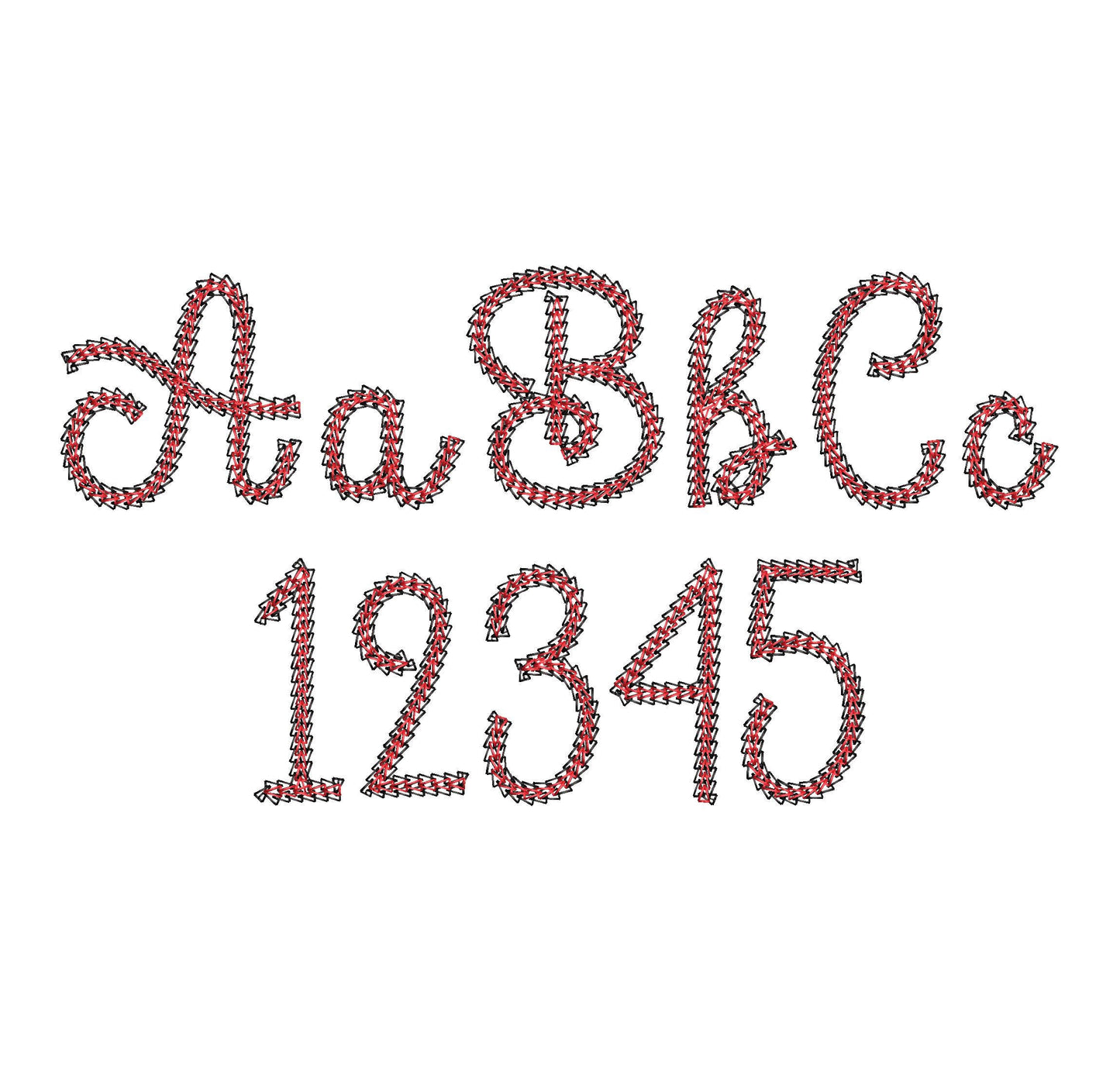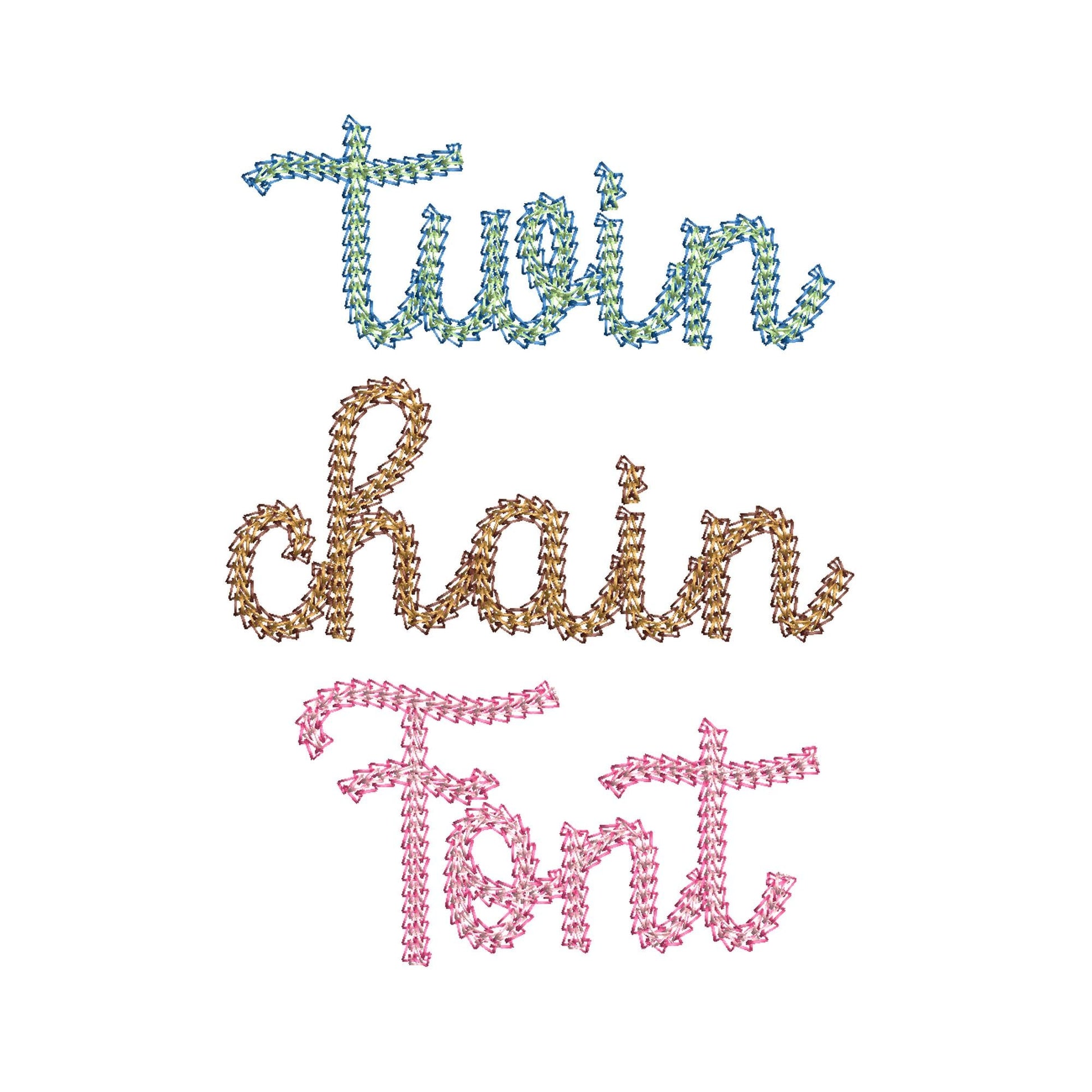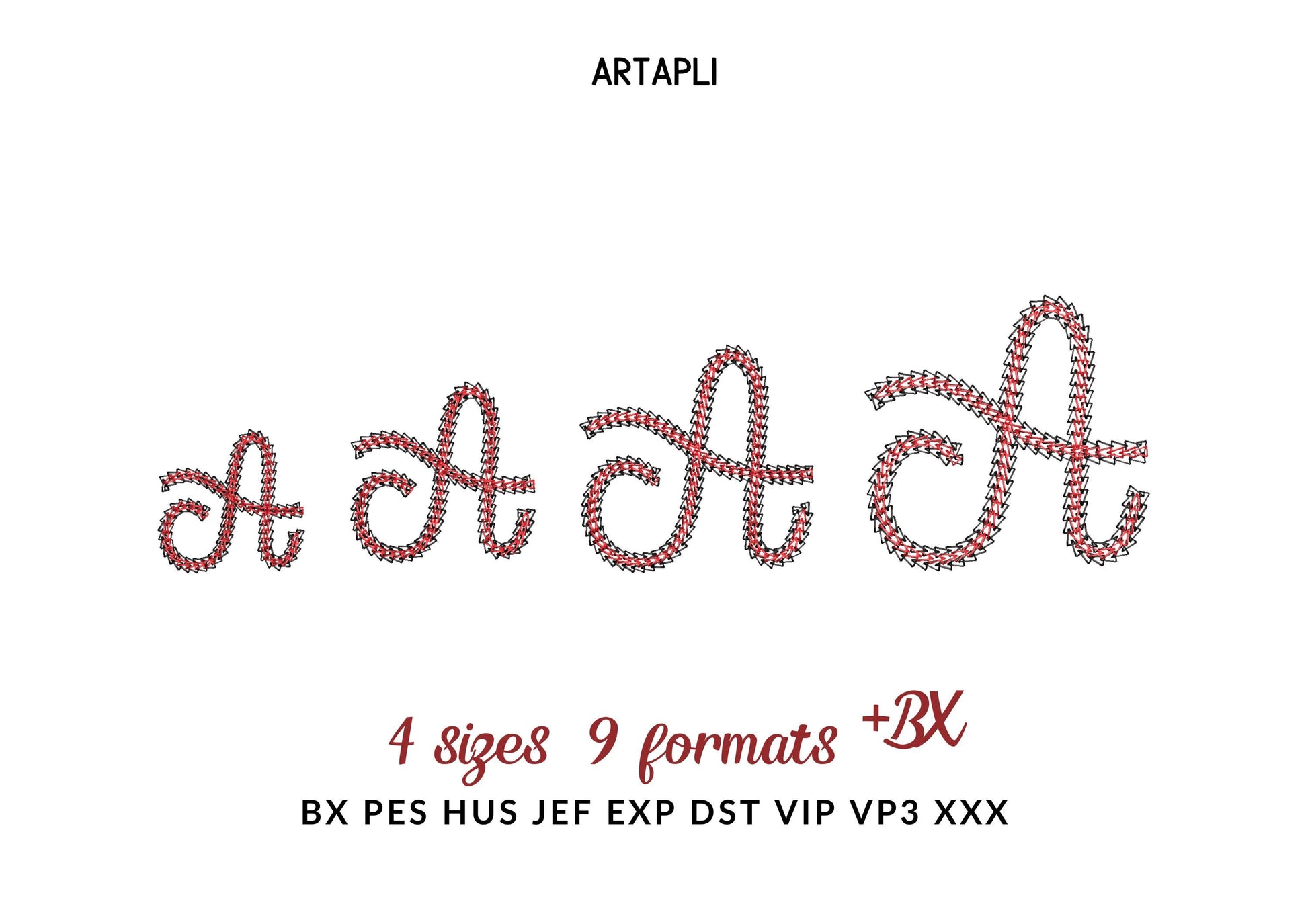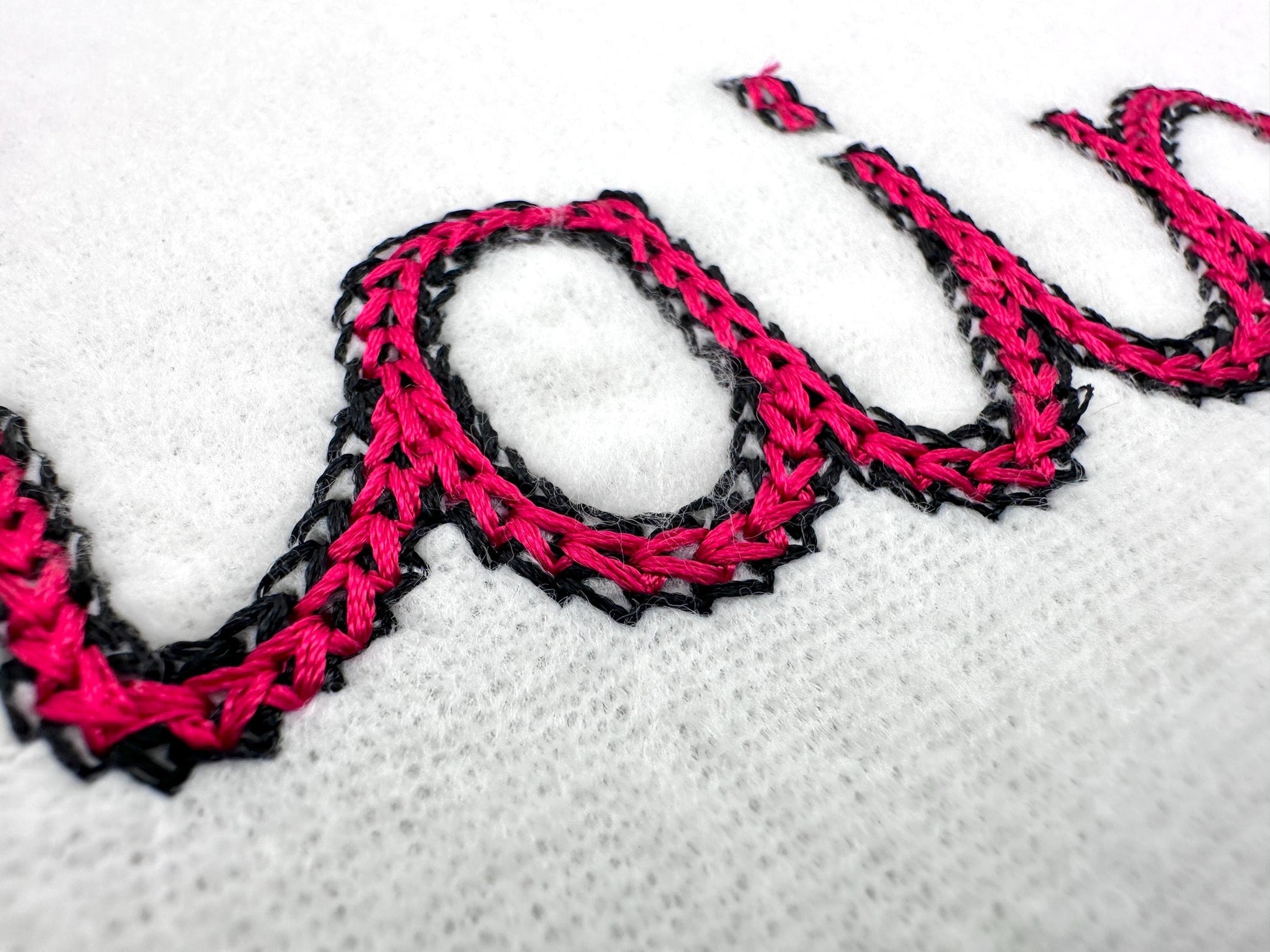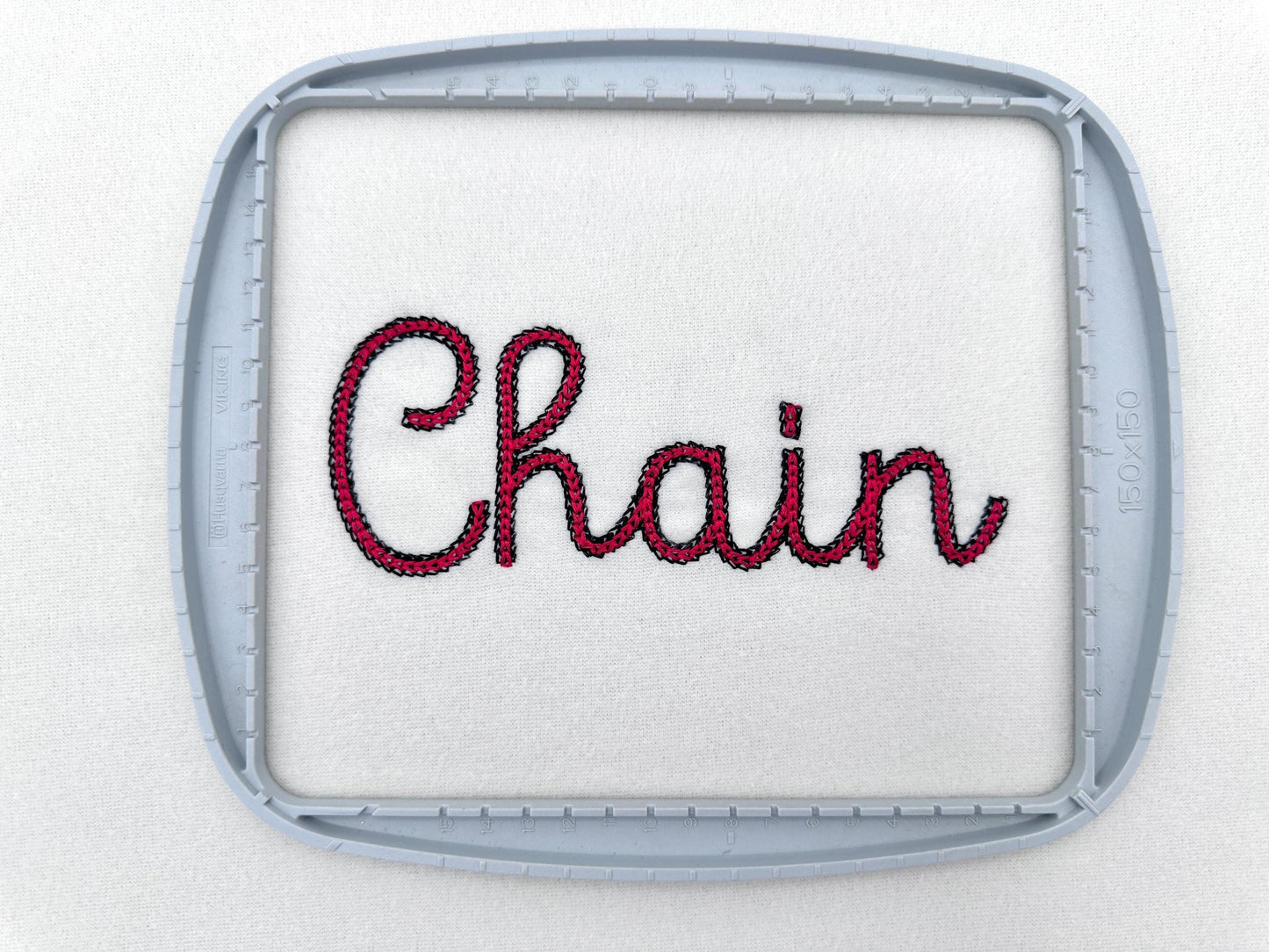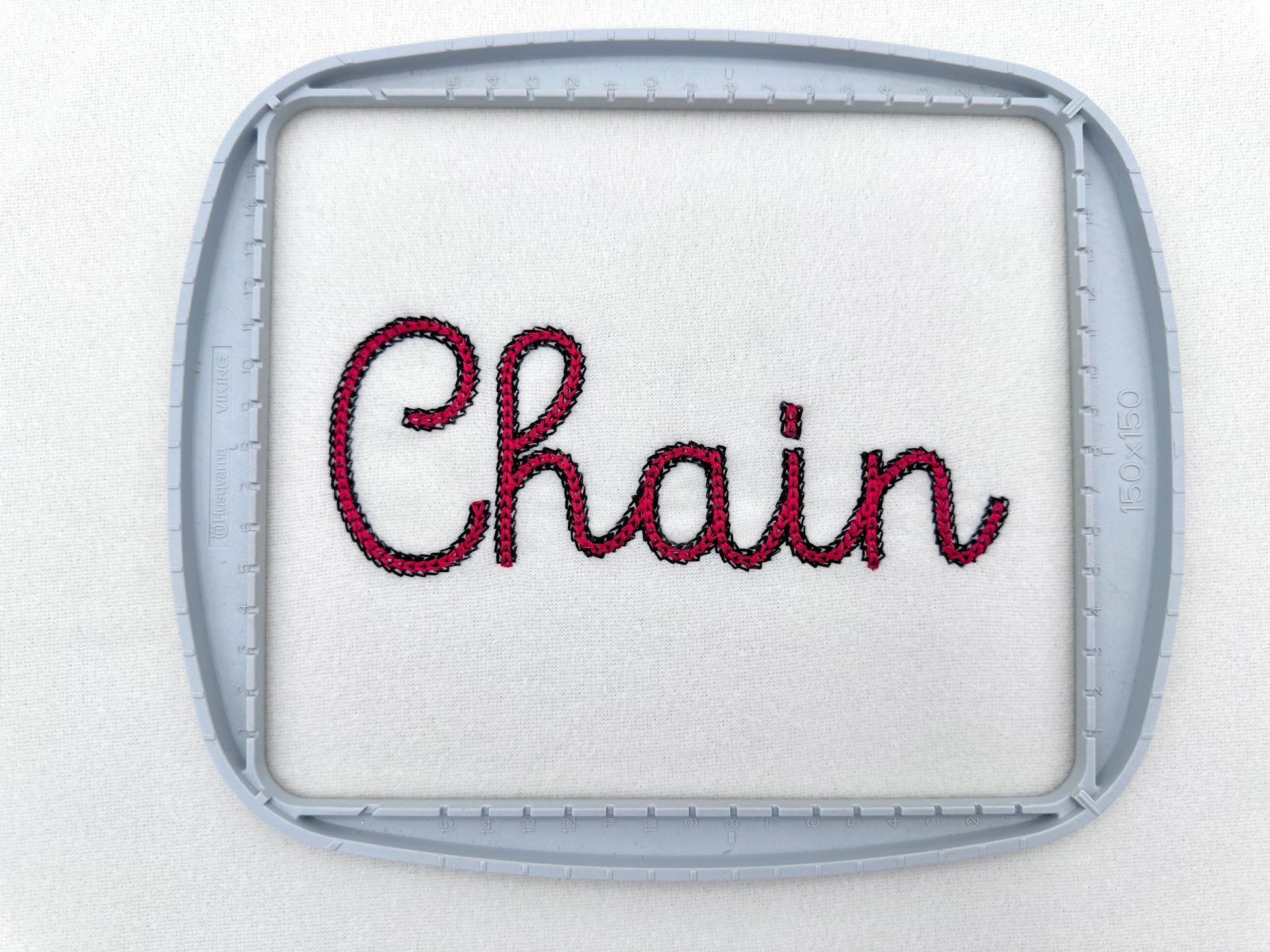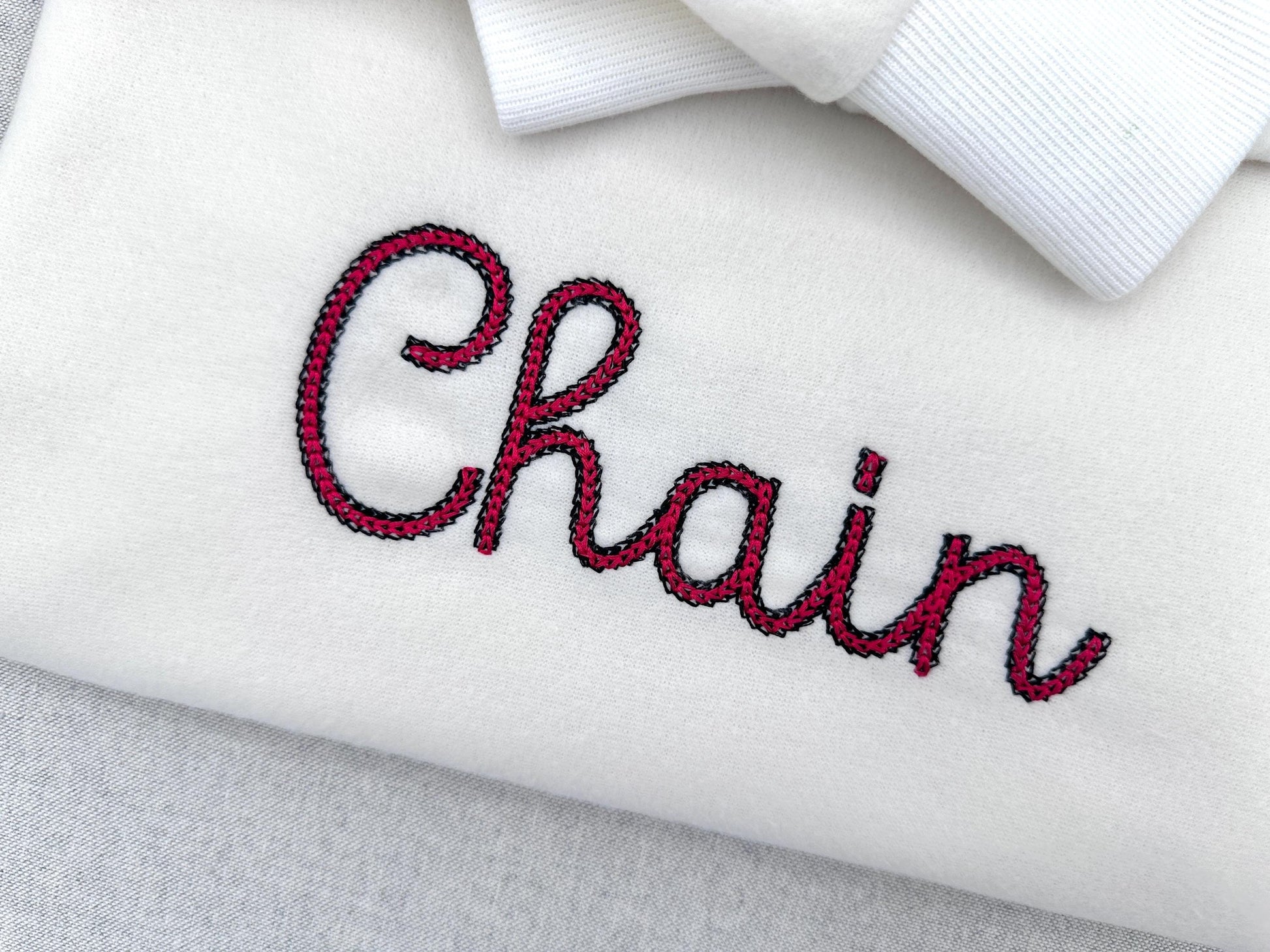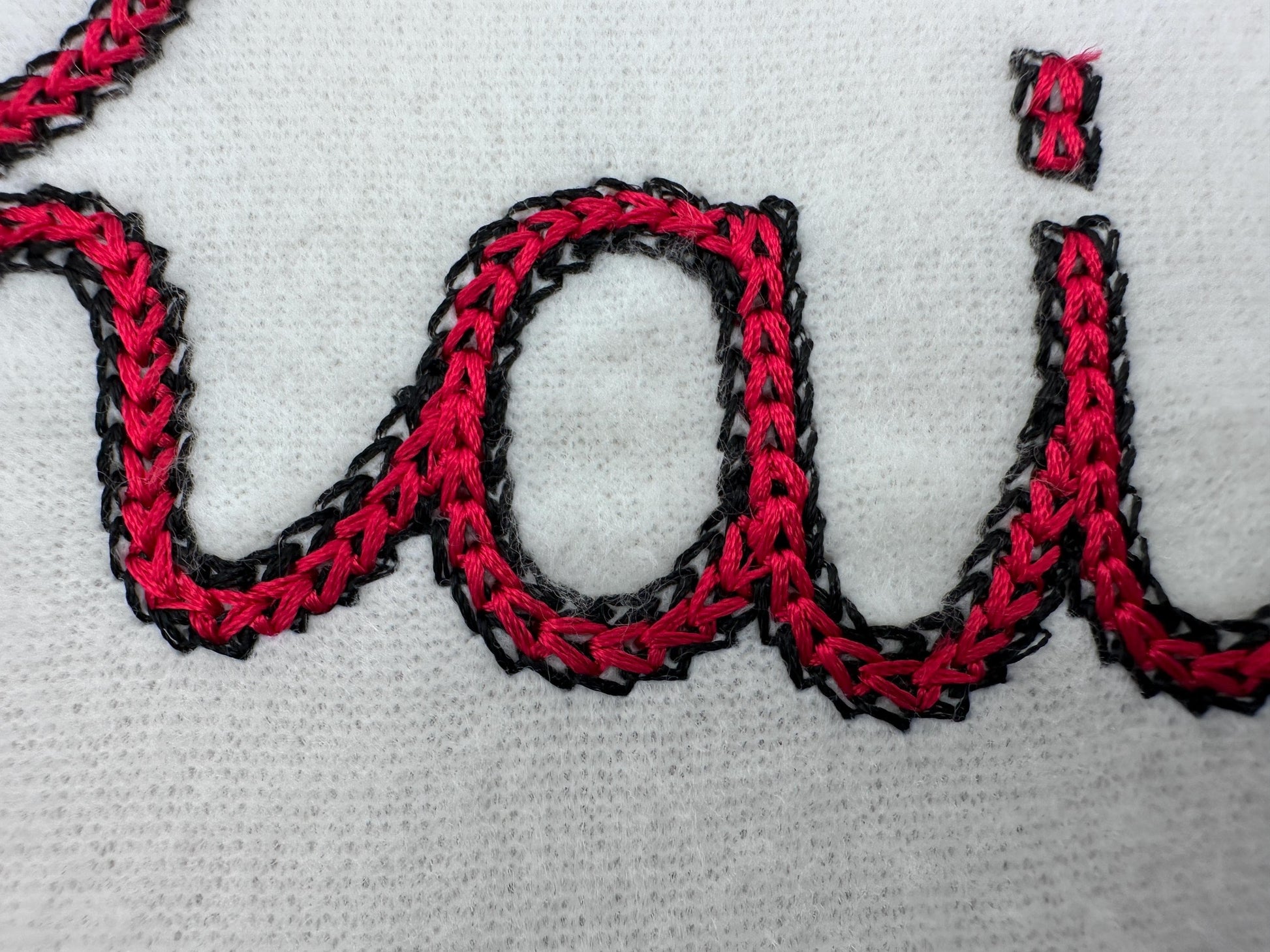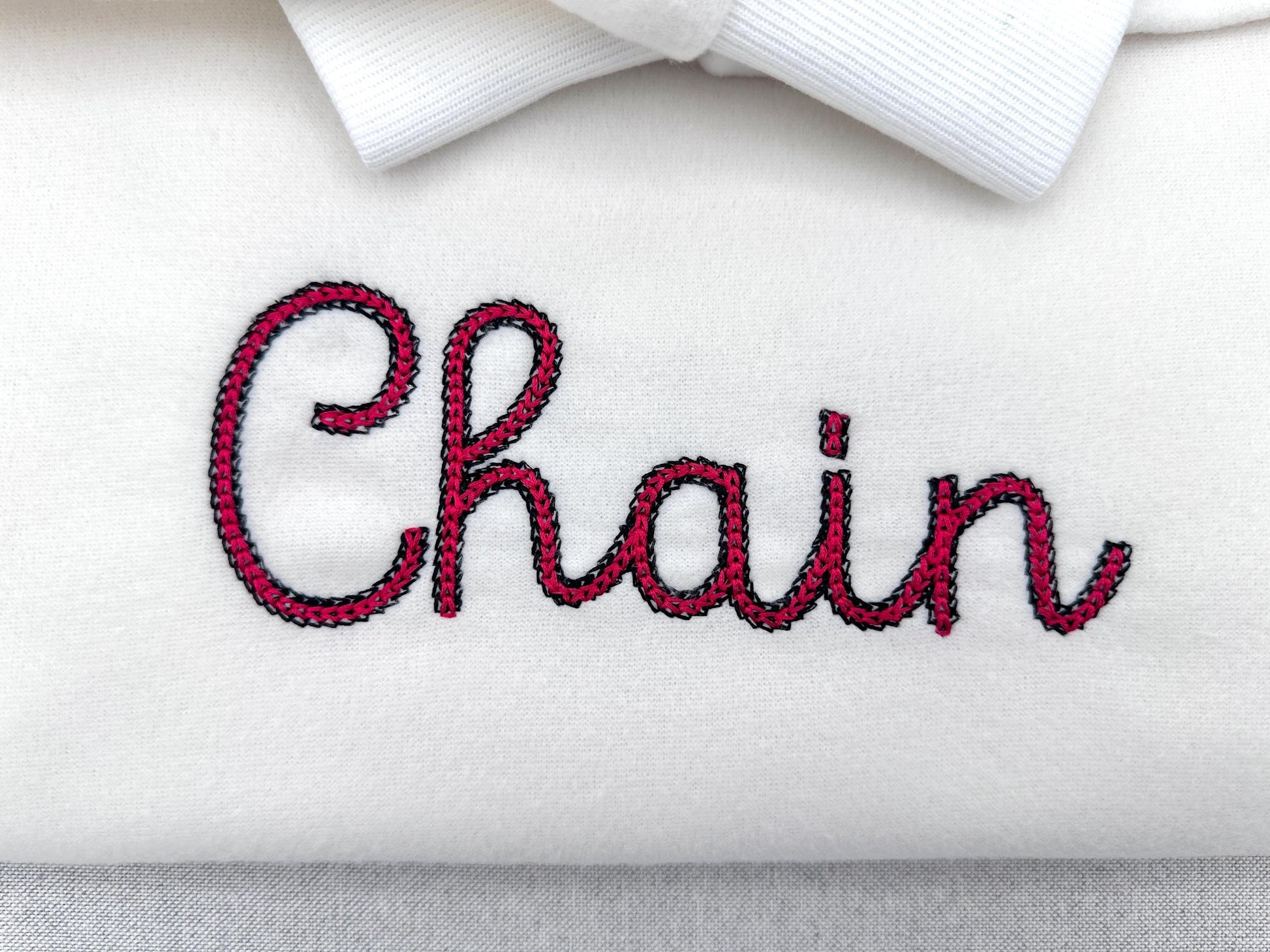
Light Stitch 2 Color Twin Chain Font
The letters come in four sizes: 1.8, 2.2, 2.8 and 3.4 inches. Two parallel chain stitch lines in two colors form each letter. Includes uppercase and lowercase letters A to Z, numbers 0 to 9 and punctuation.
- 2-color twin chain stitch script font
- 4 sizes: 1.8, 2.2, 2.8 and 3.4 in